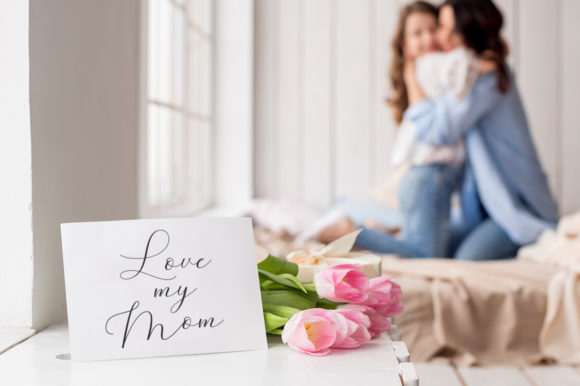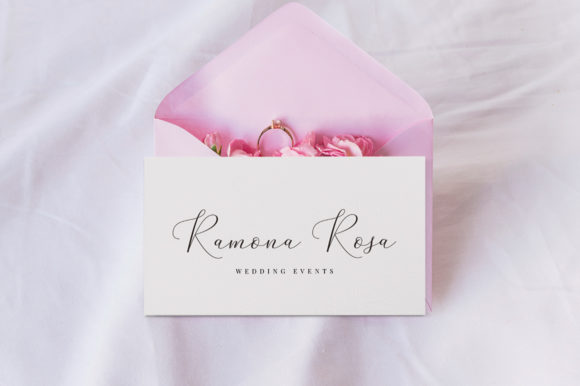
Montine Script Font
db-ku.com - Script & Handwritten -- Inspired by modern calligraphy, Montine is a fun and cool handwritten font with a unique charm!